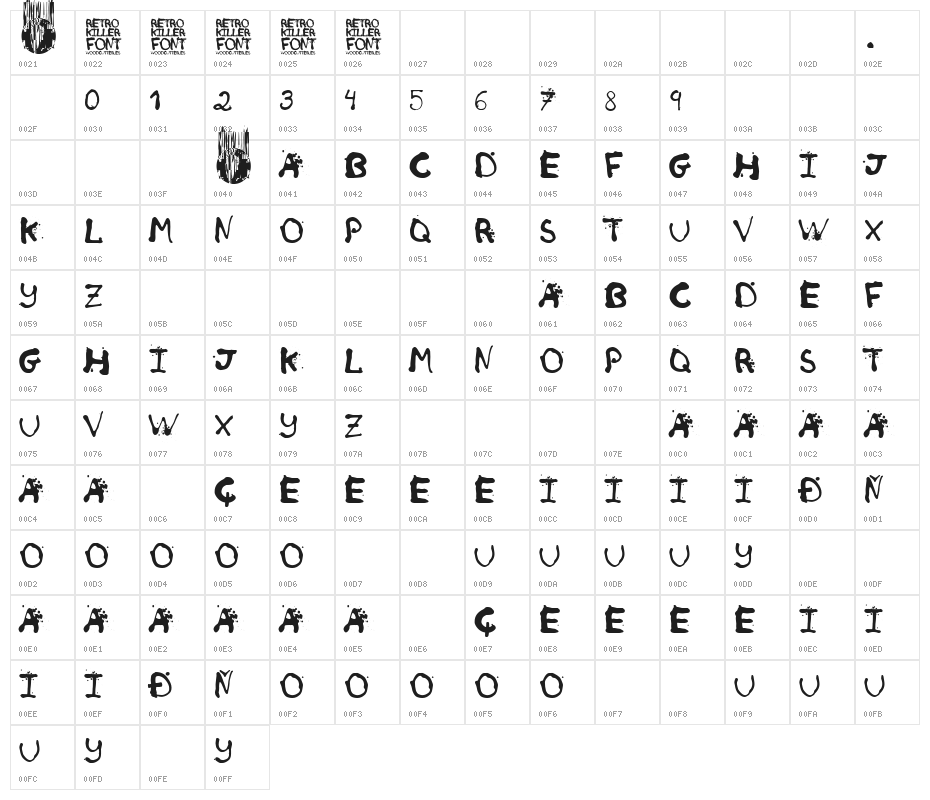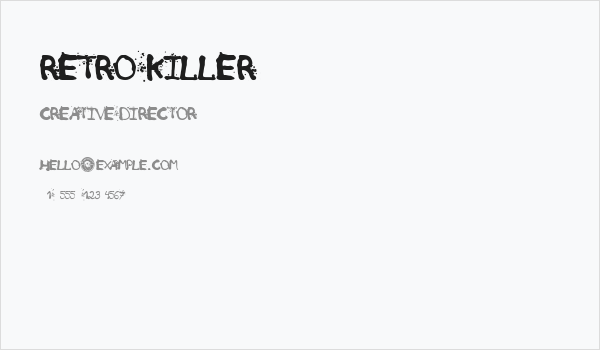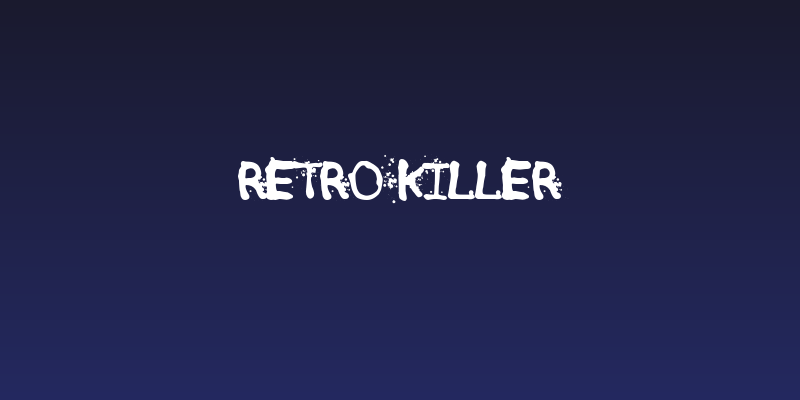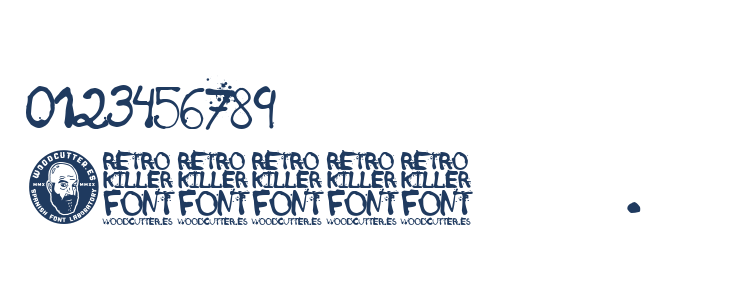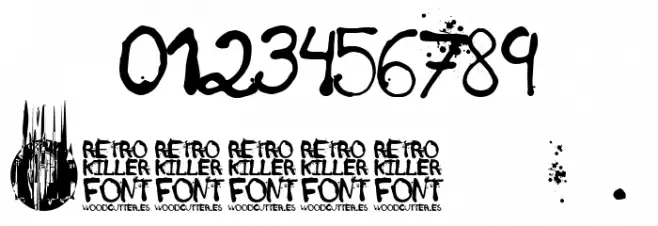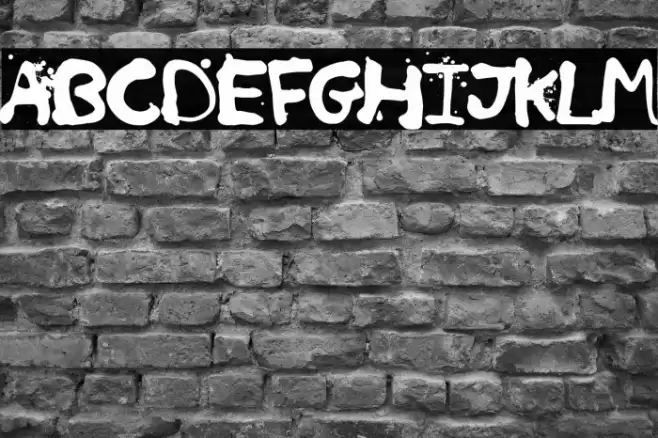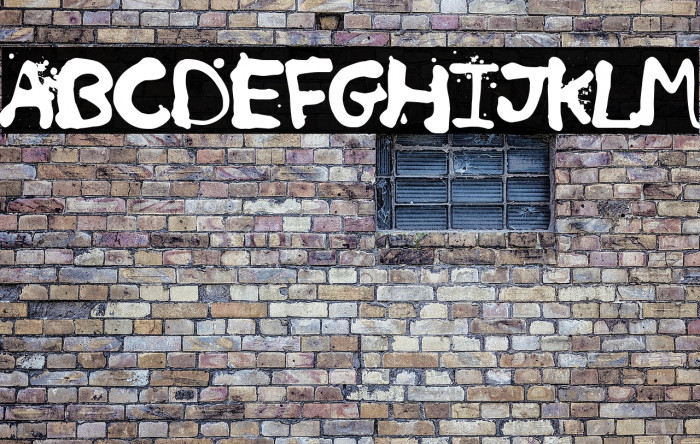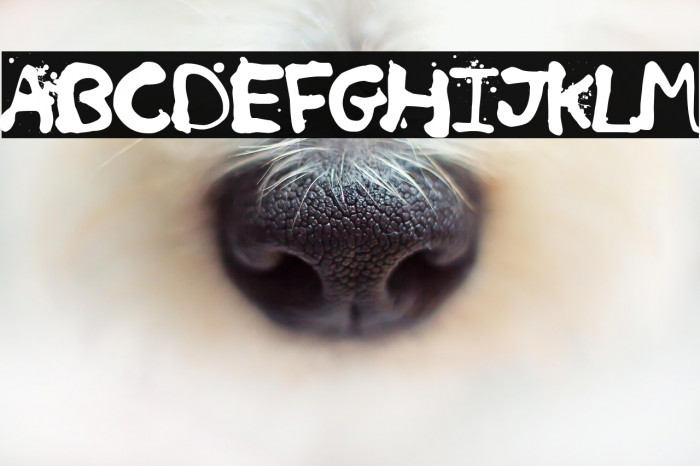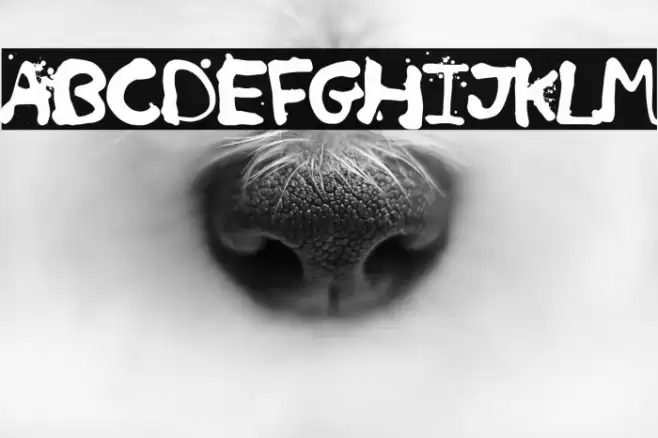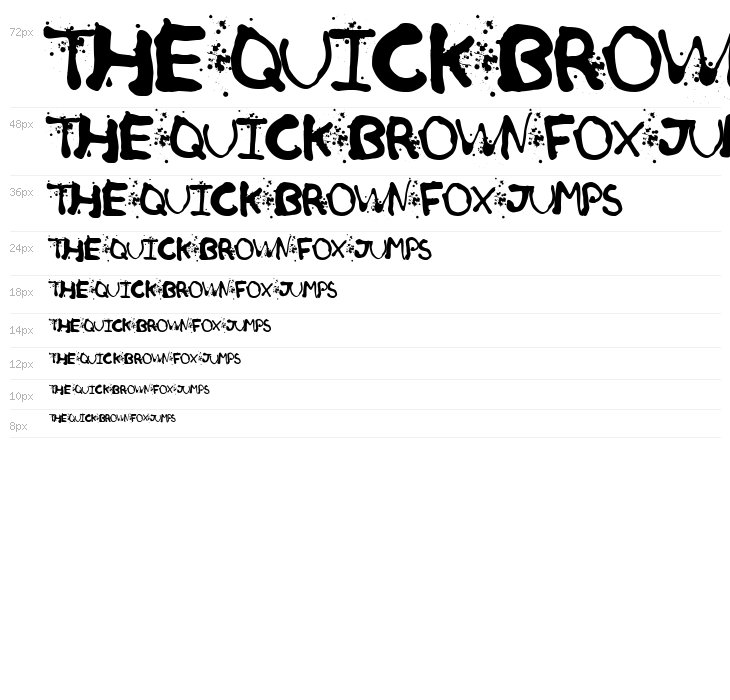
Retro Killer Font
Retro Killer Description
This font features a bold, grungy style with a distressed appearance, reminiscent of ink splatters or graffiti. The characters are irregular and have a hand-drawn feel, with varying thicknesses and rough edges that give it a raw, edgy look. The uppercase and lowercase letters maintain a consistent style, while the numerals and special characters complement the overall aesthetic. This font's unique design makes it stand out, perfect for projects that require a bold statement or an alternative, rebellious vibe.
| Overall Style | Grunge, Edgy, Alternative |
| Proposed Projects | Ideal for album covers, posters, streetwear branding, or any project needing a bold, edgy look. |